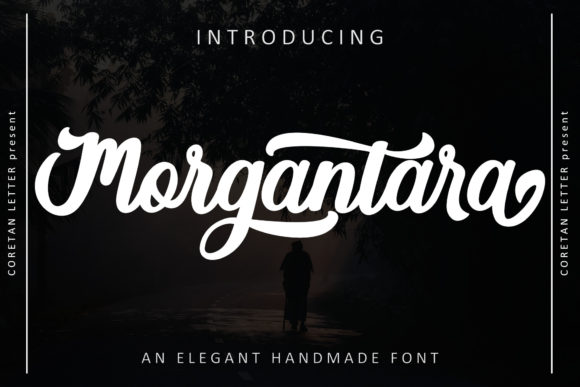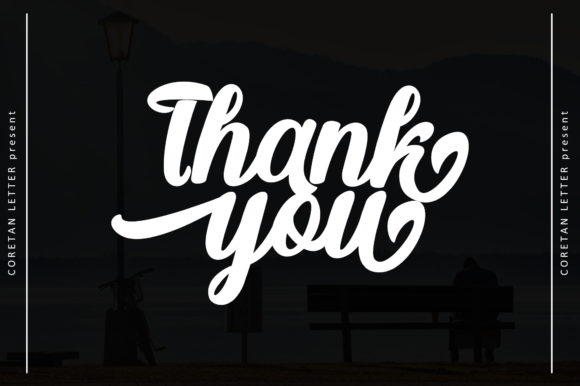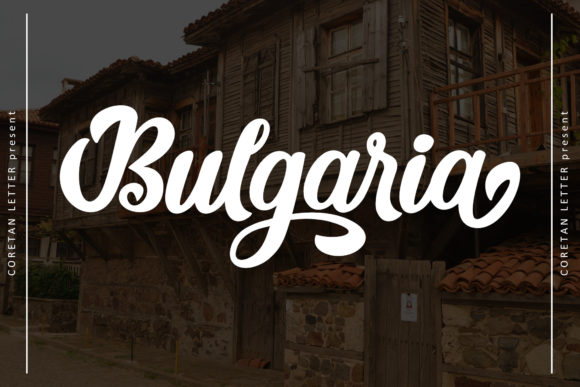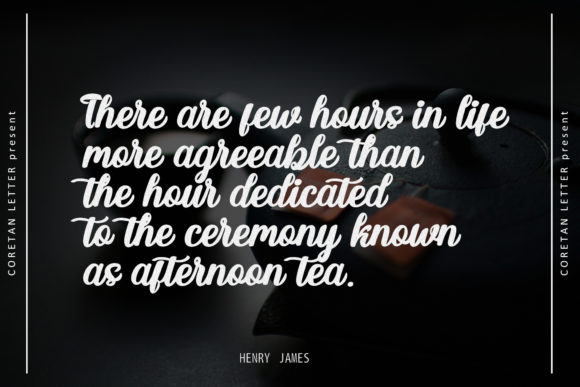
Morgantara Font: Elegant Script for Signature Logos & Wedding Designs
About the Morgantara Font
From logos to headlines, the Morgantara Font is the perfect choice for making a lasting impression. Morgantara is a beautiful, bold and cursive script font. It is PUA encoded which means you can access all of the glyphs and swashes with ease!
Fall in love with its incredibly versatile style and use it to create spectacular designs!
Morgantara’s bold, expressive strokes make it ideal for headlines, logos, and short, impactful text within branding materials or packaging design. Its decorative nature also lends itself well to invitations and other stationery where a touch of elegance is desired. However, its cursive style and high contrast limit its use in body text or UI elements; long paragraphs would be difficult to read.
For a balanced aesthetic, pair Morgantara with a clean sans-serif like Montserrat for a modern feel, or a classic serif such as Garamond for a more timeless look. A geometric sans-serif such as Futura would also create a striking contrast, highlighting Morgantara’s organic curves.
Morgantara projects a confident, sophisticated personality. It’s best suited to brands that want to convey a sense of luxury, creativity, or individuality. Avoid using it for projects requiring high readability or a minimalist, understated aesthetic.
Morgantara Font Usage Examples
Morgantara Font Example